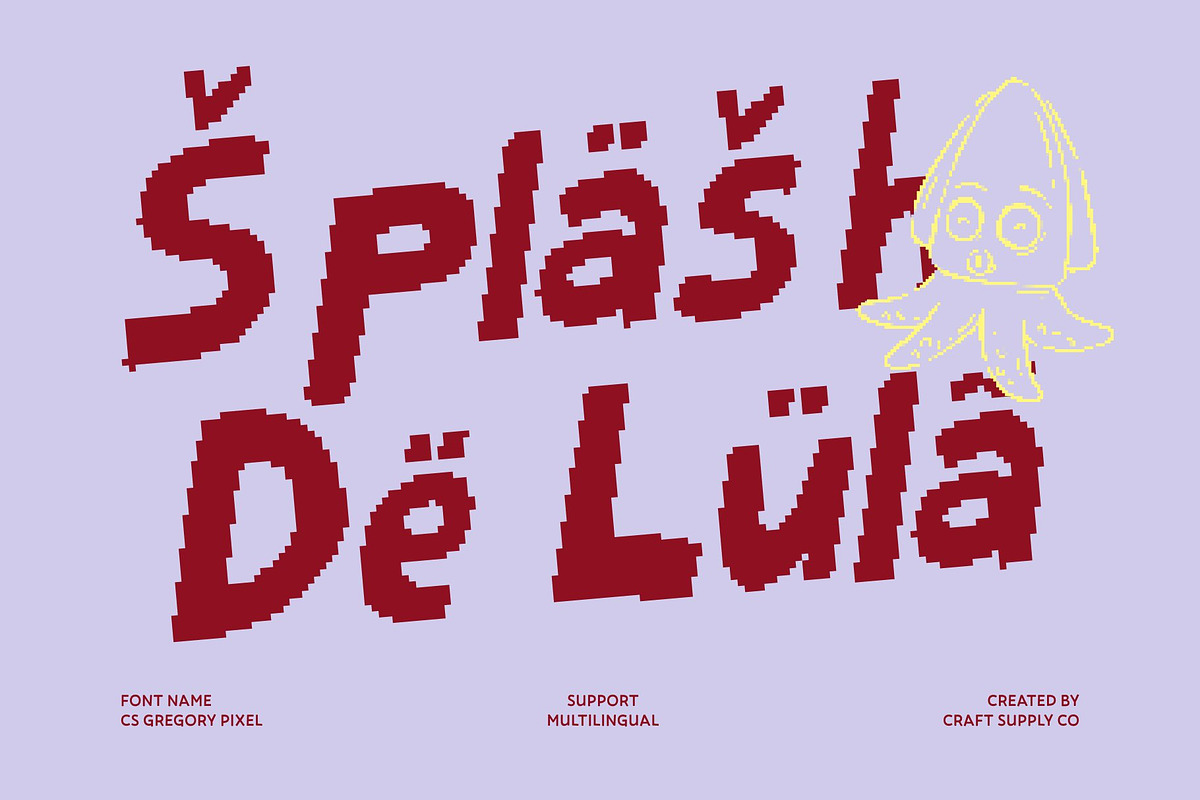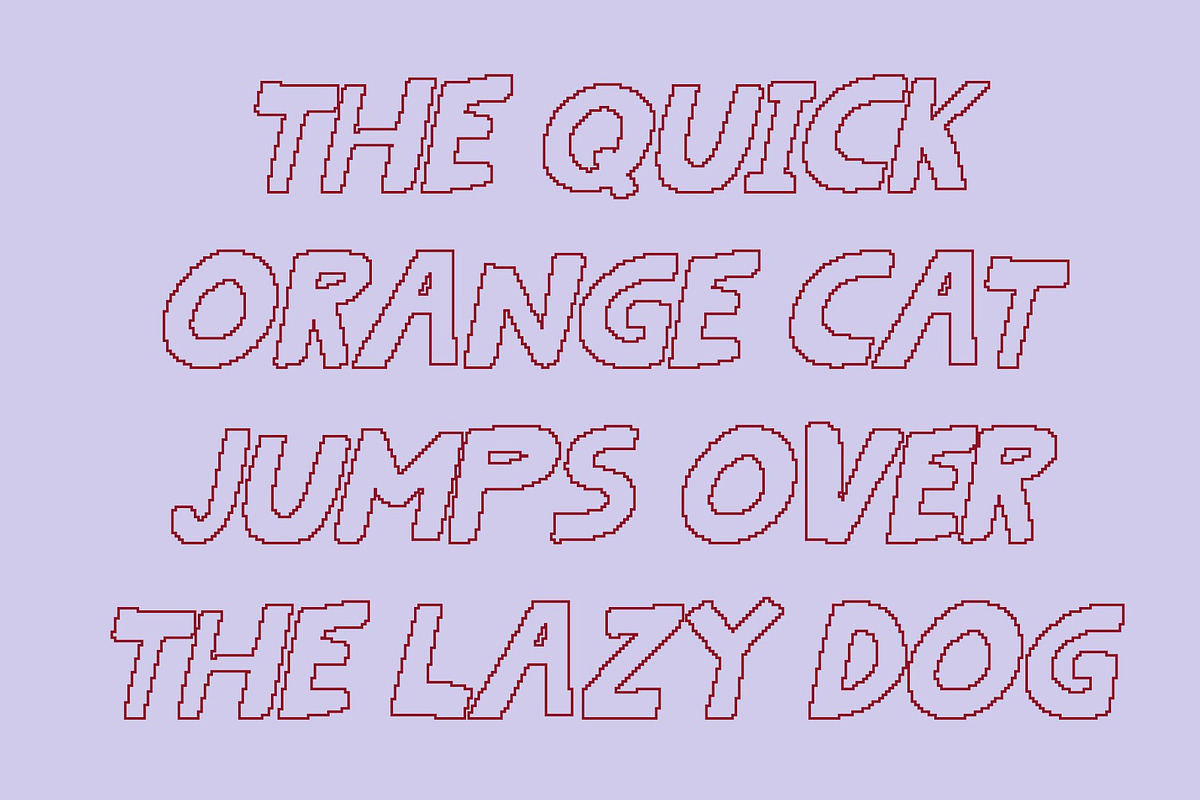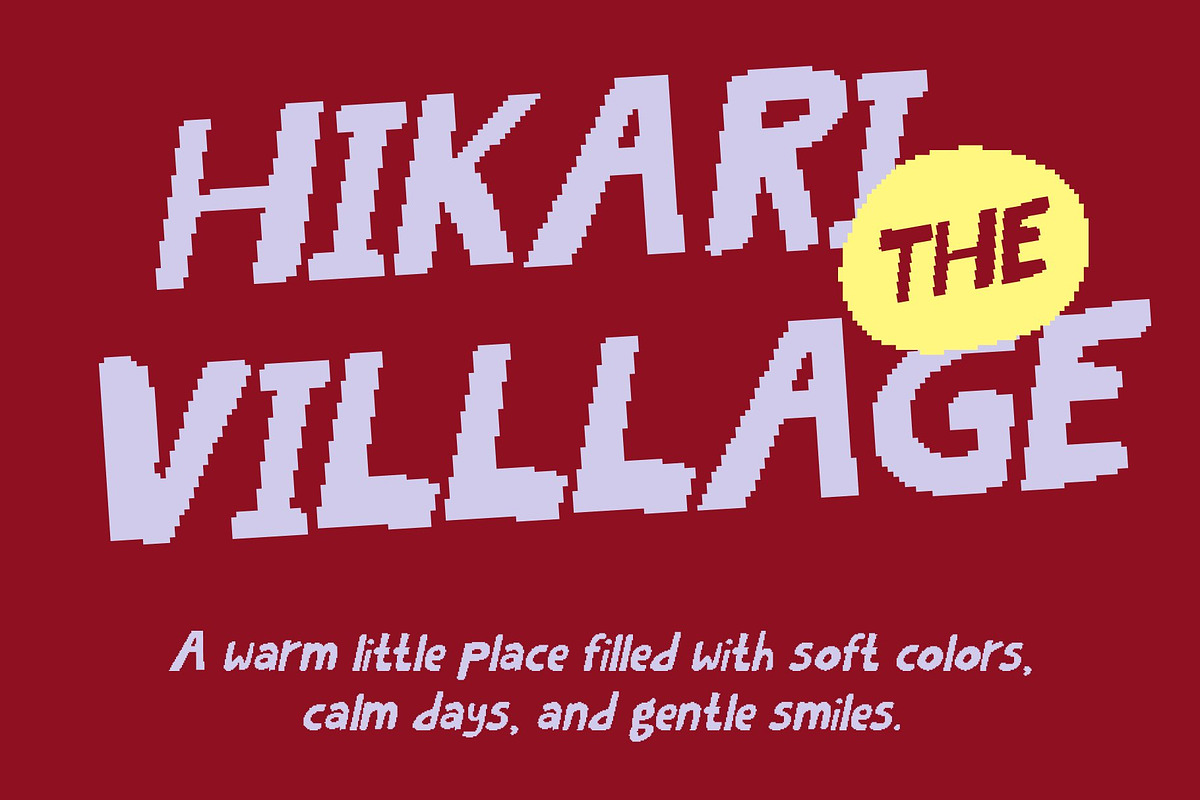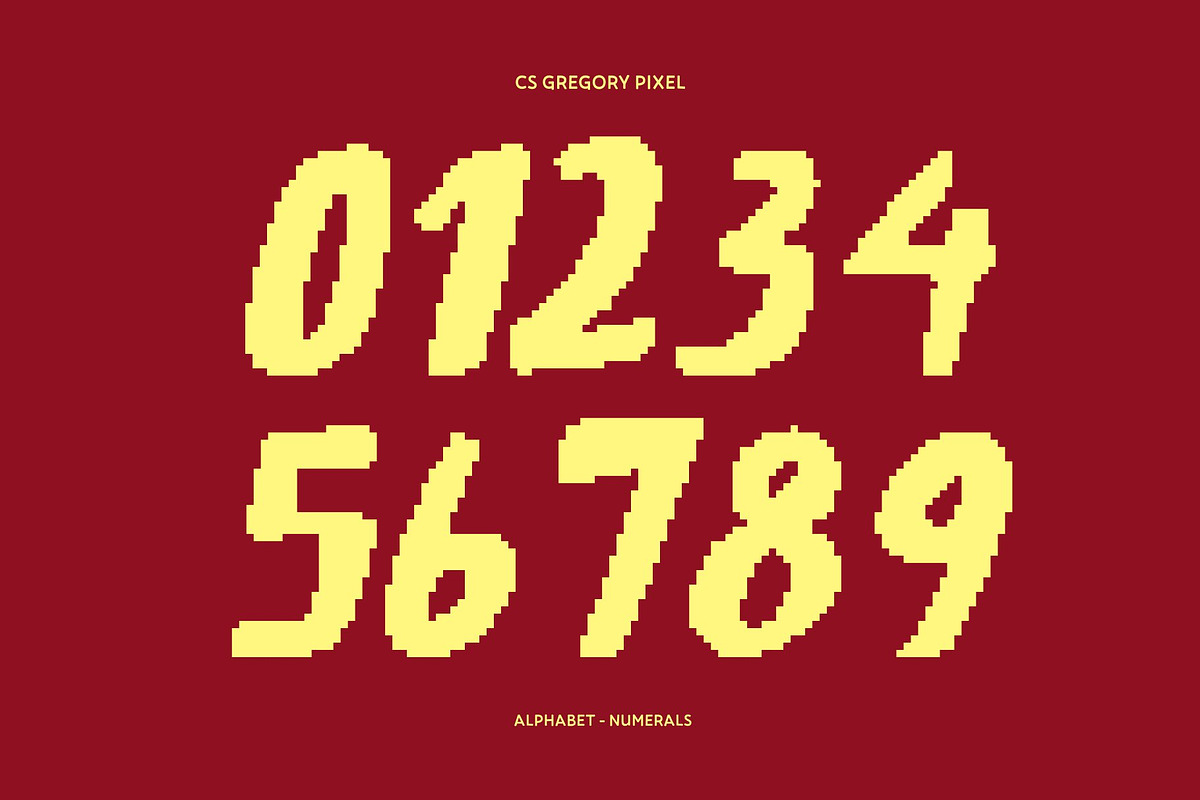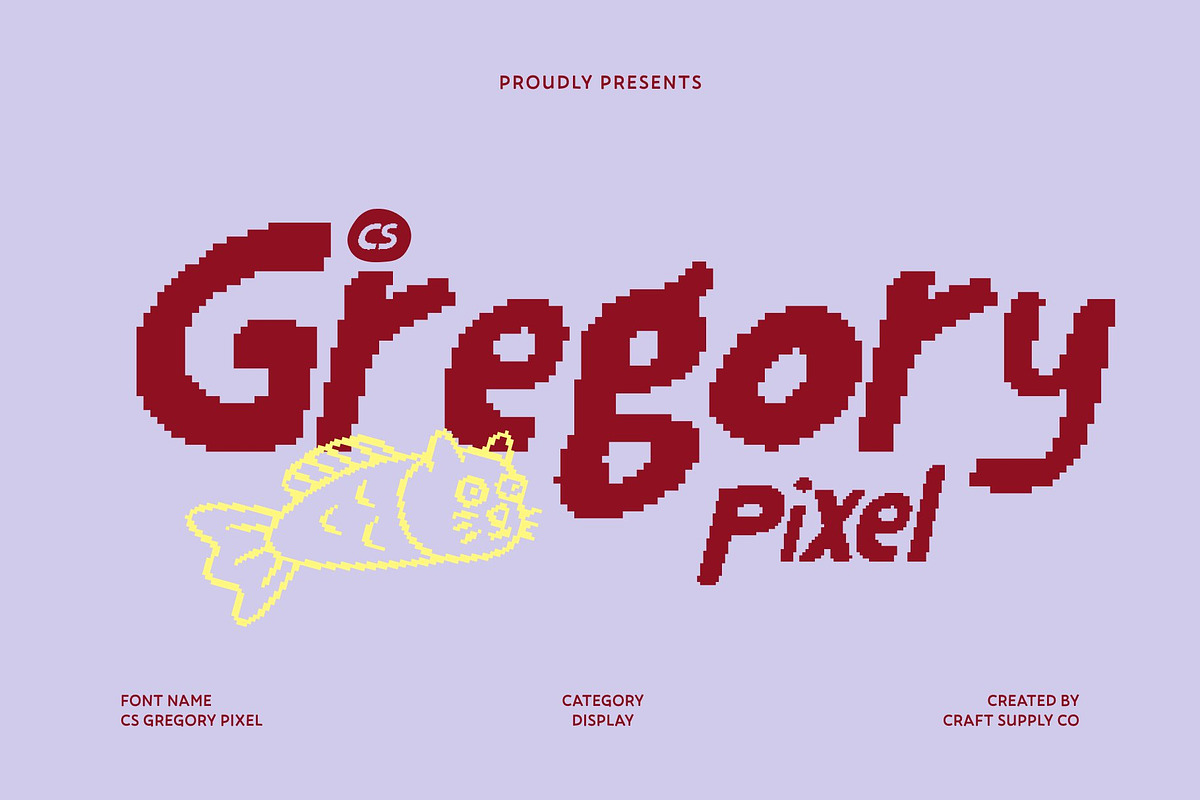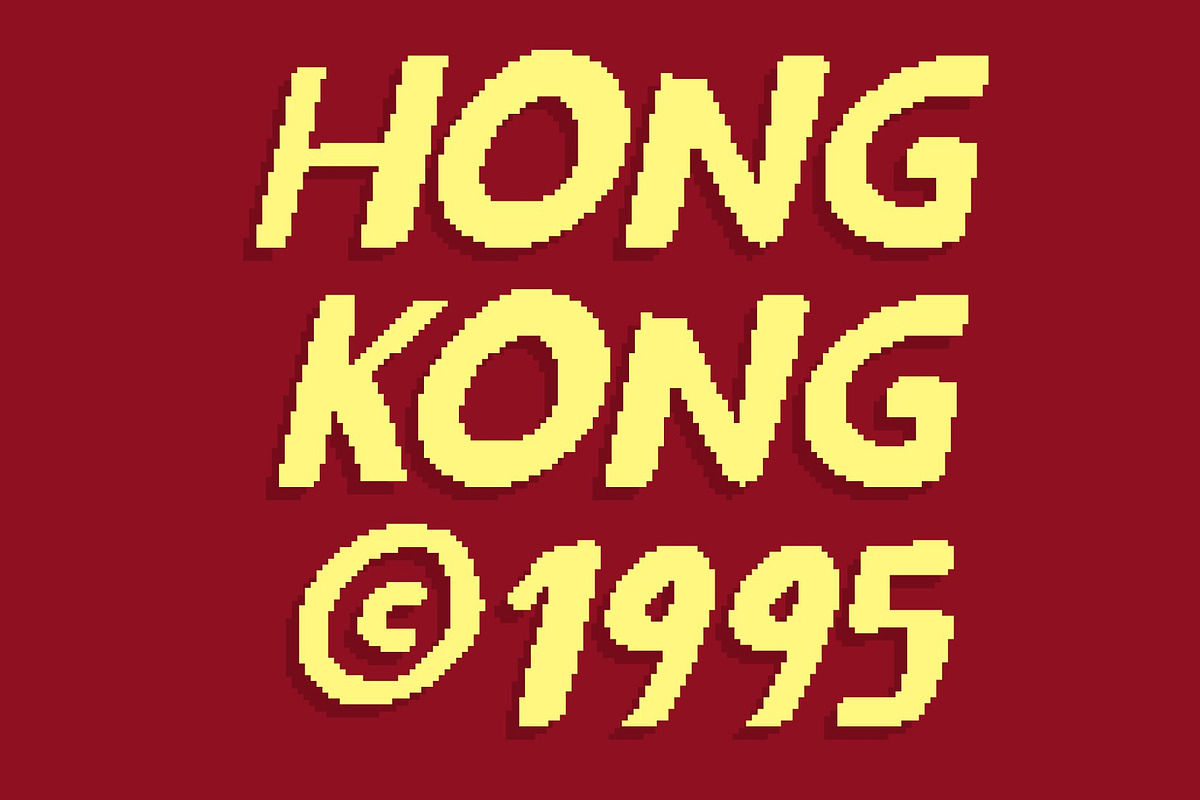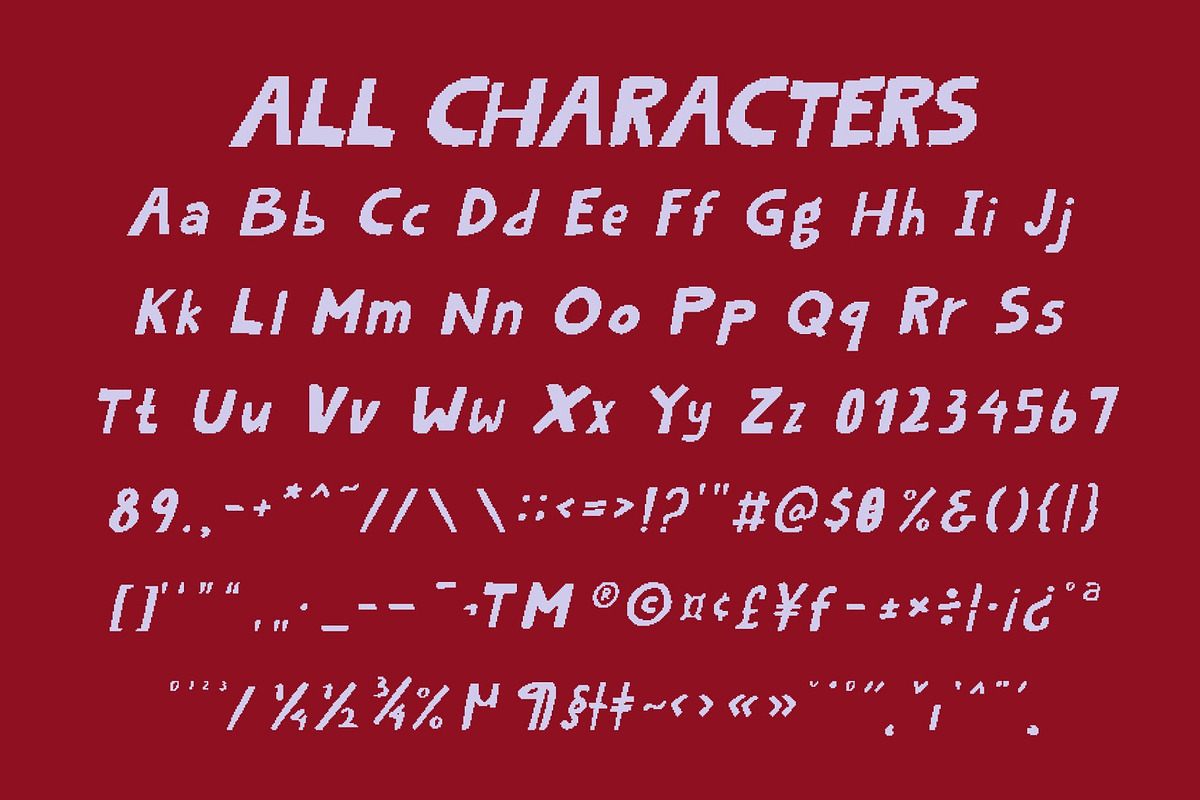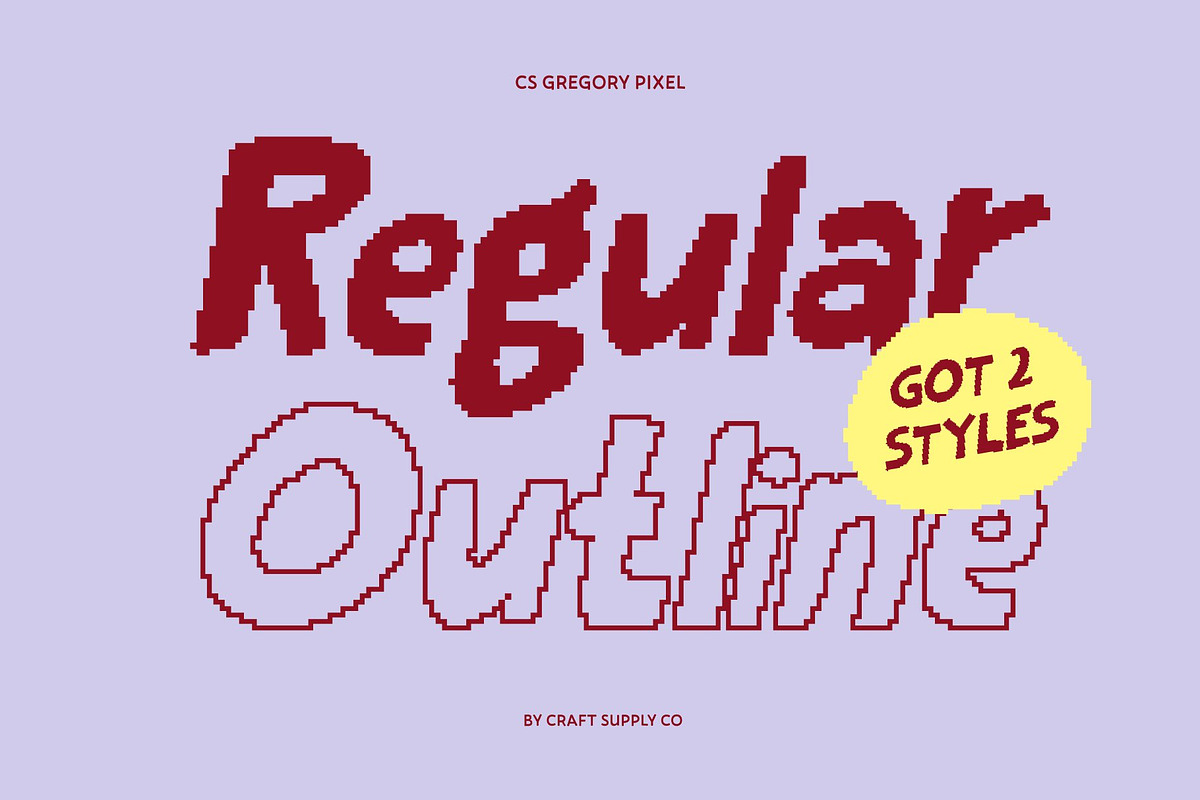
CS Gregory Pixel
CS Gregory Pixel – Playful Personality with Quirky Charm
Modern Meets Handwritten Expression This is a cheerful display font that blends modern sans serif structure with the free spirit of handwritten expression, enhanced by a distinctive pixel style. Each character feels slightly irregular yet lively, creating typography that feels spontaneous, human, and full of personality. The pixel construction adds a nostalgic digital touch, giving the font a fun, retro-tech attitude.
Playful Shapes with a Happy Pixel Vibe This quirky “ugly-beautiful” font celebrates imperfection as a design strength. Its unusual letterforms, playful proportions, and pixelated details create joyful energy that instantly feels friendly and expressive. The result is typography that feels happy, approachable, and visually memorable perfect for designs that want to feel fun rather than formal.
Perfect for Bold and Creative Branding This font shines in posters, logos, editorial layouts, and digital visuals where character matters most. Its lively rhythm and handcrafted-pixel feel make it ideal for youth-oriented branding, creative studios, art events, playful packaging, and experimental campaigns that want to stand out with charm and confidence.
Typography That Smiles Back More than just a font, is a celebration of creativity and individuality in the pixel era. It transforms words into cheerful expressions, combining human warmth with retro digital flair. Use it when you want your typography to radiate happiness, originality, and a distinct sense of playful fun perfect for modern screens and nostalgic tech-inspired designs.